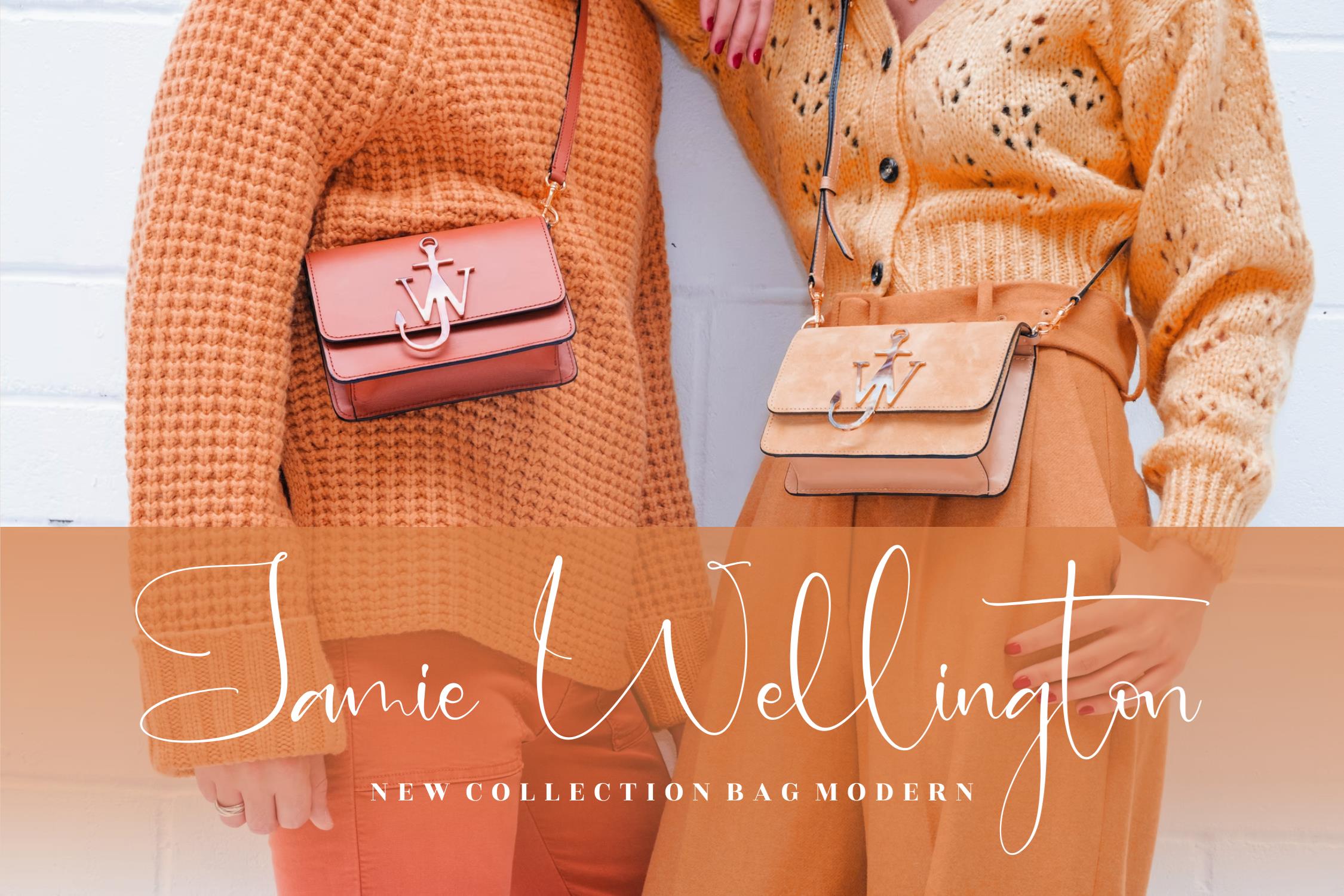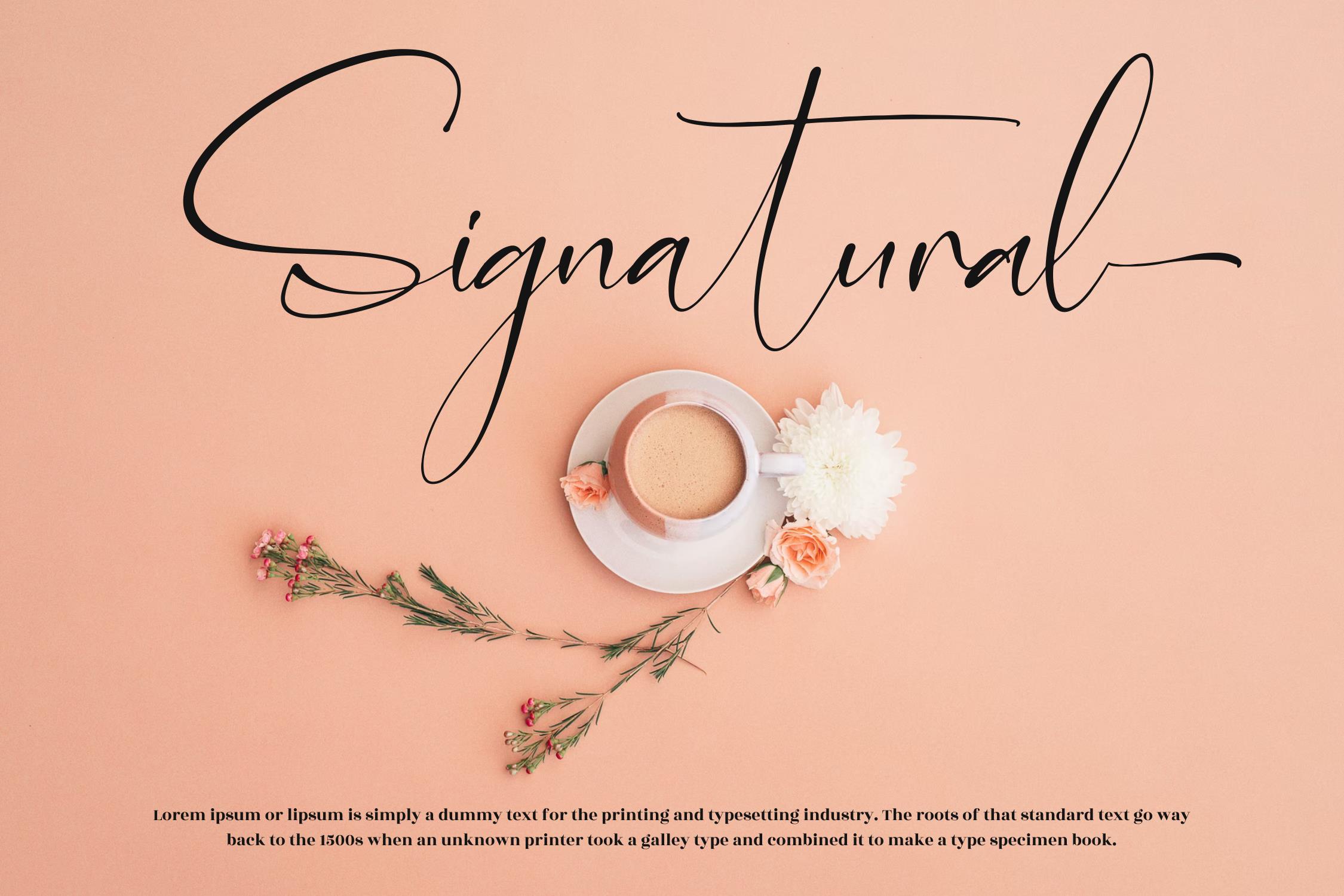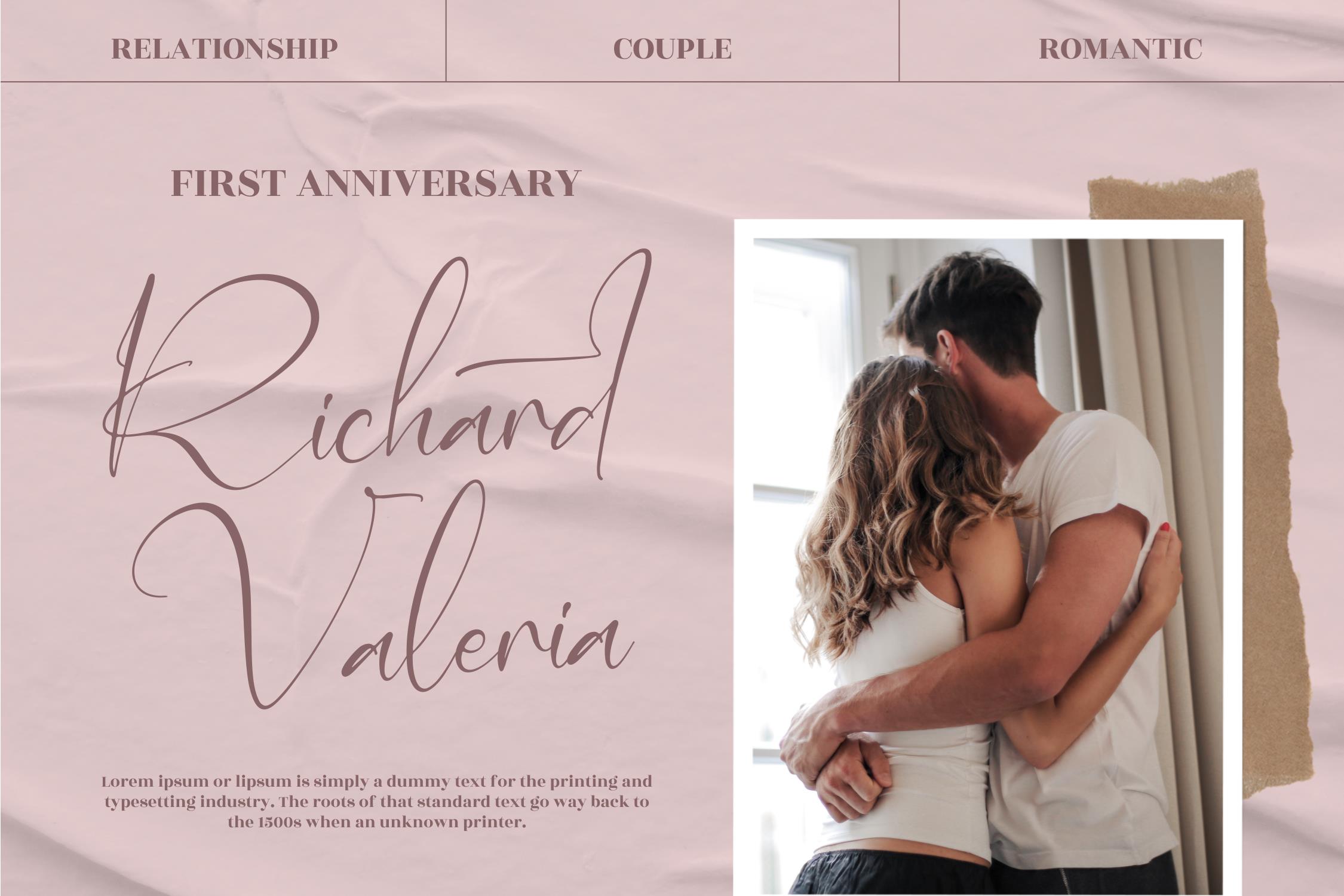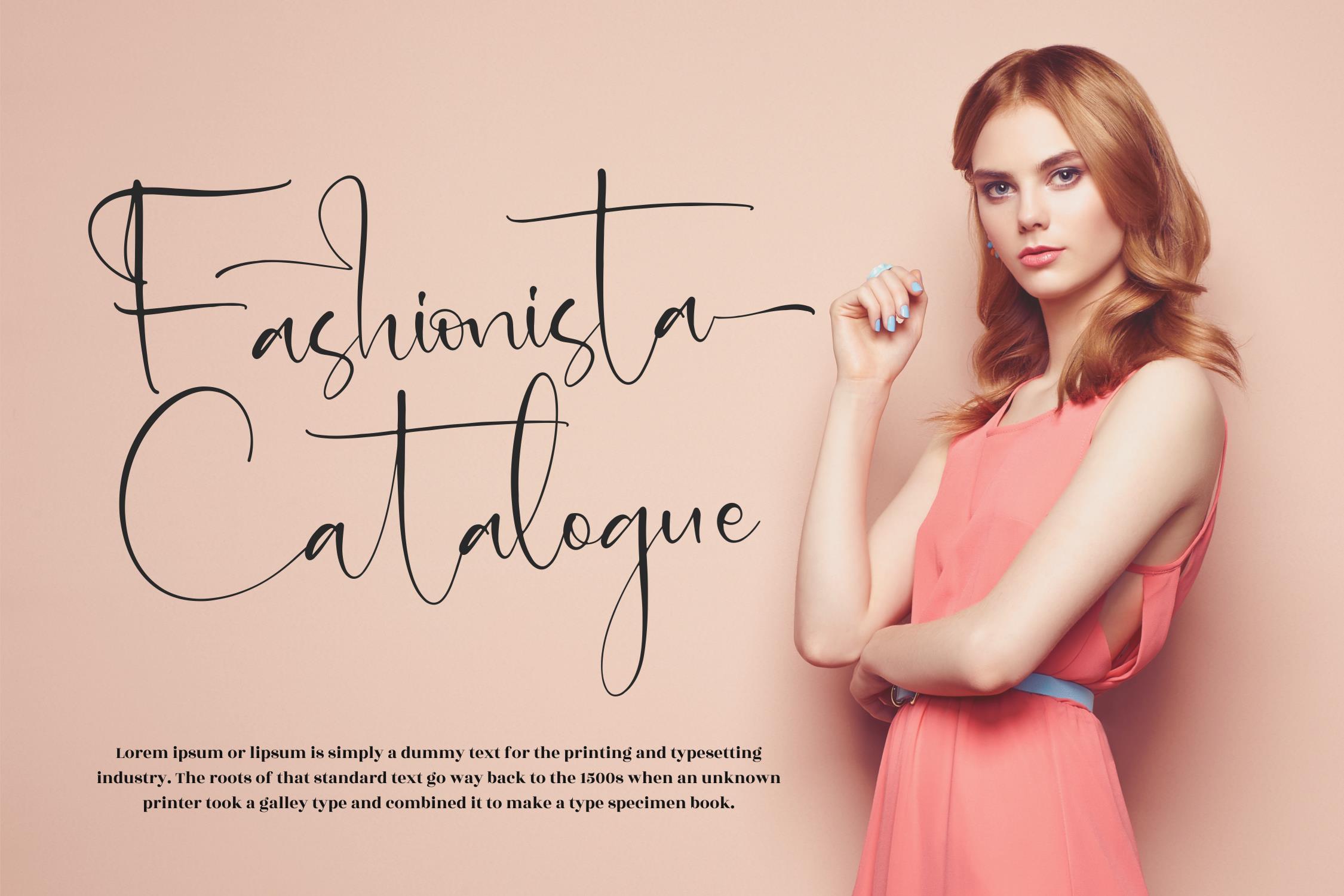
Berthalia Donatha Font
Berthalia Donatha Script Font
This is a beautiful script font, suitable for any projects such as: logos, branding projects, homeware designs, product packaging, mugs, quotes, posters, shopping bags, t-shirts, book covers, name card, invitation cards, greeting cards, label, photography, watermark, special events, and all your other lovely projects that need a beautiful script taste.